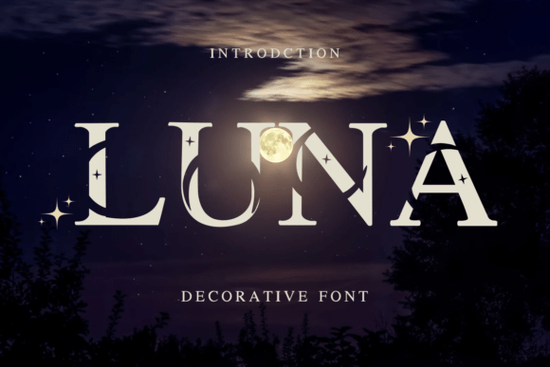
If you're working on a project that calls for a touch of night-sky elegance think moon phase journals, astrology branding, or mystical event invites you’ve probably been searching for a font that blends sophistication with a little cosmic charm. That’s where Luna Font comes in. Designed with delicate serif lines and subtle celestial details like star-shaped cutouts and crescent-inspired curves, Luna brings a refined yet dreamy aesthetic to any creative layout.
Unlike generic decorative fonts that lean too whimsical or overly ornate, Luna strikes a thoughtful balance. It’s structured enough to feel professional ideal for logos or book covers but infused with just enough magic to stand out in tarot card designs, spiritual product packaging, or even fashion-forward invitations. If your work leans into themes like intuition, the cosmos, or feminine mystique, this typeface adds personality without overwhelming your message.
What kinds of projects is Luna Font best suited for?
Luna shines (pun intended) in visual contexts where mood and atmosphere matter. Here are a few real-world uses that designers and small business owners have found especially effective:
- Astrology or wellness branding – From zodiac-themed apparel to moon ritual kits, Luna lends authenticity and grace.
- Tarot and oracle card decks – Its ethereal details complement mystical imagery without clashing.
- Planners and journals – Especially those focused on lunar cycles, self-reflection, or spiritual growth.
- Wedding or event stationery – For evening galas, celestial-themed weddings, or solstice celebrations.
- Book covers and poetry collections – Where typography needs to evoke emotion before a single word is read.
How does Luna compare to other celestial or mystical fonts?
Many “mystical” fonts rely heavily on swirls, excessive ornamentation, or inconsistent letterforms that can be hard to read at smaller sizes. Luna avoids these pitfalls by grounding its design in classic serif principles. The result? A font that’s both legible and evocative. The star accents are integrated thoughtfully not slapped on as afterthoughts so they enhance rather than distract.
It also includes uppercase and lowercase letters, numerals, punctuation, and multilingual support, making it practical for real-world use beyond headlines. And because it’s optimized for both print and digital, you won’t run into rendering issues when moving from mockup to final product.
Tips for using Luna Font effectively
Because Luna is a display font, it works best in larger sizes think titles, headers, or short phrases. Avoid using it for body text, as its decorative elements can reduce readability in long passages.
To maximize its impact:
- Pair it with a clean sans-serif – Try fonts like Montserrat or Lato for supporting text to keep your layout balanced.
- Use generous spacing – Luna’s details need room to breathe, so increase letter-spacing slightly in headlines.
- Stick to muted or deep color palettes – Charcoal, navy, deep purple, or soft golds complement its nocturnal elegance better than bright neons.
- Limit usage to one or two focal points per design – Overusing Luna can dilute its magic; let it highlight key moments instead.
When used with intention, Luna doesn’t just add style it adds soul.